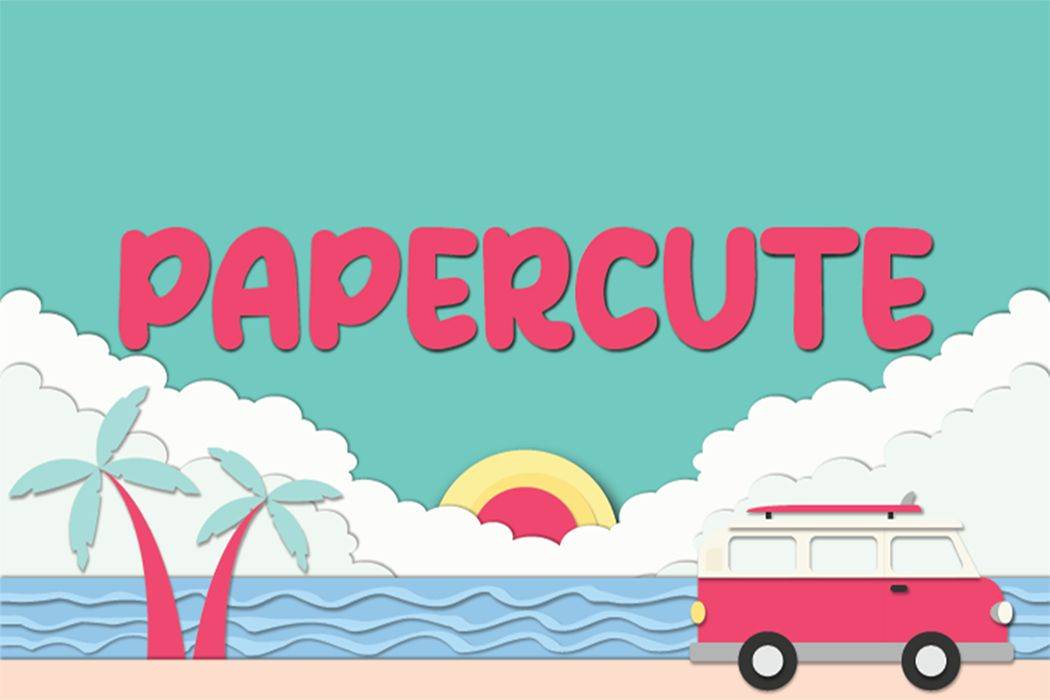
Papercute is a bold, playful sans serif font with rounded, soft edges that create a friendly and approachable feel. Its thick strokes and slightly condensed letterforms make it perfect for fun, casual designs like kids' products, posters, and informal branding. This font works well where a cheerful and inviting personality is needed to draw attention and convey warmth.
Papercute Font
About Papercute Font
| Font family | Papercute Font |
| Designer | Lady Hanna |